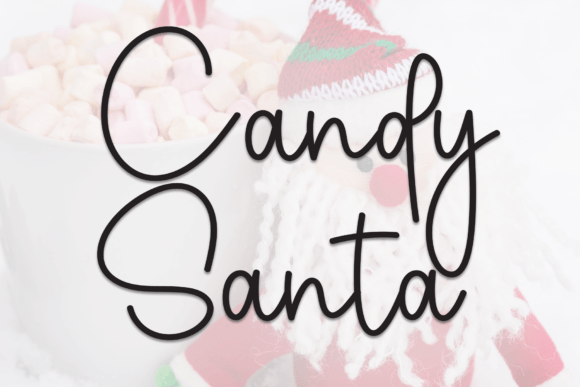
Unwrapping the Magic of the Candy Santa Font
Do you remember the thrill of unwrapping a gift on Christmas morning, only to be met with the sweet aroma of freshly unwrapped candy? It’s moments like these that spark our creativity and inspire us to bring joy to others. As designers, we’re constantly on the lookout for the perfect font to capture the essence of our ideas, and that’s where the Candy Santa Font comes in.
This elegant handwritten font is the perfect addition to any project, bringing a touch of whimsy and sophistication to your designs. With its flowing script and timeless style, the Candy Santa Font is a valuable tool for designers looking to create spectacular and memorable designs. Whether you’re working on a holiday campaign or a personal project, this font is sure to bring a smile to your audience’s faces.
Candy Santa Font Key Features
- Unique Characteristics: Whimsical, playful design with a mix of bold and cursive elements, ideal for festive and holiday-themed designs
- Font Style: Script, Display
Candy Santa Font Review
First off, I want to say that the Candy Santa Font is a unique and fun addition to any design project. It works well in ✨ festive and playful contexts, such as holiday cards, party invitations, and social media graphics. The font’s bold and whimsical feel is sure to grab attention and put a smile on people’s faces.
Some of the font’s strengths include:
- ✨ High level of expressiveness, conveying a sense of joy and celebration
- ✨ Wide range of font weights and styles, making it easy to find the perfect fit for your design
- ✨ Supports a variety of languages, including English, Spanish, French, and more
- ⚠️ May not be suitable for formal or professional designs, as it can come across as too playful or immature
- ⚠️ Some characters may not render correctly in certain software or devices, which can lead to inconsistent results
Overall, I think the Candy Santa Font is a great choice for designers looking to add a touch of whimsy and fun to their projects. While it may not be suitable for every design scenario, it’s definitely worth considering for the right project.
Tips for Getting the Most Out of Candy Santa Font
To get the most out of the Candy Santa Font, try combining it with bold and italic styles to create a playful and festive look. You can also experiment with different font sizes and colors to add emphasis and create visual interest.
Common Use Cases for Candy Santa Font
The Candy Santa Font is perfect for creating festive and playful designs for holidays like Christmas, Easter, and Halloween. You can use it for creating invitations, greeting cards, and social media graphics.
Alternatives to Candy Santa Font
Great Vibes is a beautiful, handwritten font that works well for festive and holiday-themed designs. It’s perfect for adding a touch of elegance and sophistication to your designs. Great Vibes is more refined and less playful than Candy Santa Font, making it suitable for a wider range of designs.
Carolyna Pro is a modern, script font that’s ideal for creating eye-catching headlines and titles. It’s more versatile than Candy Santa Font and can be used for both festive and non-festive designs. Carolyna Pro has a more polished and sophisticated look, making it suitable for high-end branding and marketing materials.